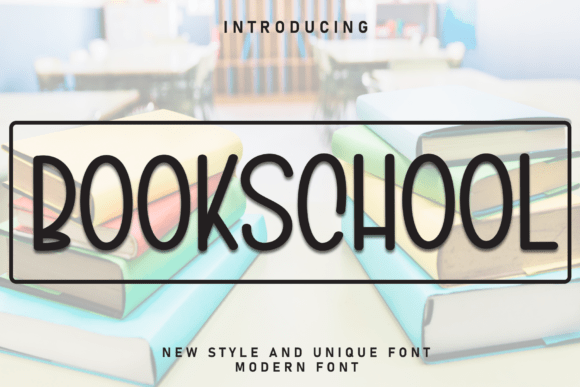
Introducing Bookschool Font: The Perfect Blend of Warmth and Clarity
In the world of typography, finding the right font can make all the difference in bringing your projects to life. Whether you’re a designer, crafter, or simply someone who appreciates the art of lettering, Bookschool Font is a game-changer. This casual and neat display font is designed to infuse your creations with warmth and clarity, making it an excellent choice for branding, headlines, and everyday designs.
The Design Behind Bookschool Font
Bookschool Font boasts a clean structure and approachable style that sets it apart from other display fonts. Its balanced letterforms are carefully crafted to offer exceptional readability and charm, making every message feel genuine and inviting. The font’s design is perfect for projects that require a friendly and approachable tone, such as:
- Headlines and titles
- Signage and advertising
- Packaging and labels
- Digital and print media
What Makes Bookschool Font Special?
So, what makes Bookschool Font stand out from the crowd? Here are a few key features that make it a must-have for designers and crafters:
- Clean structure: Bookschool Font features a clean and organized design that ensures clarity and readability, even at smaller sizes.
- Approachable style: The font’s friendly and approachable tone makes it perfect for projects that require a personal touch.
- Balanced letterforms: The font’s carefully crafted letterforms offer exceptional readability and charm, making every message feel genuine and inviting.
- Versatility: Bookschool Font is suitable for a wide range of projects, from branding and advertising to packaging and digital media.
How to Use Bookschool Font in Your Projects
Bookschool Font is incredibly versatile and can be used in a variety of projects. Here are a few ideas to get you started:
- Branding and logos: Use Bookschool Font to create a friendly and approachable brand identity that resonates with your audience.
- Headlines and titles: Add a touch of warmth and clarity to your headlines and titles with Bookschool Font.
- Signage and advertising: Use Bookschool Font to create eye-catching signage and advertising materials that grab attention.
- Packaging and labels: Add a personal touch to your packaging and labels with Bookschool Font.
Tips for Getting the Most Out of Bookschool Font
To get the most out of Bookschool Font, here are a few tips to keep in mind:
- Experiment with sizes: Bookschool Font is designed to be clear and readable, even at smaller sizes. Experiment with different sizes to find the perfect fit for your project.
- Play with colors: Bookschool Font looks great in a variety of colors. Experiment with different color schemes to find the perfect match for your brand or project.
- Mix and match: Don’t be afraid to mix and match Bookschool Font with other fonts to create a unique and eye-catching design.
In conclusion, Bookschool Font is a versatile and charming display font that is perfect for designers and crafters looking to add warmth and clarity to their projects. With its clean structure, approachable style, and balanced letterforms, Bookschool Font is sure to become a go-to font in your collection. Whether you’re working on branding, headlines, or everyday designs, Bookschool Font is the perfect choice.